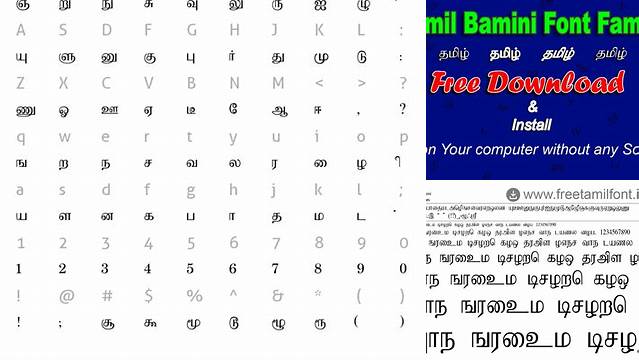
Bamini Font Free Download: Your Ultimate Guide
What is the Bamini Regular Font?
First things first, what exactly is the Bamini Regular font? Well, in a nutshell, it's a widely-used Tamil font that's known for its clear readability and aesthetic appeal. It's designed specifically for the Tamil language, meaning it includes all the necessary characters and glyphs to properly display Tamil text. Bamini Regular is a favorite among writers, designers, and anyone else working with Tamil because it strikes a perfect balance between functionality and style. It's easy on the eyes, even when you're reading long passages, making it ideal for everything from books and articles to websites and presentations. The font’s clean design ensures that the text remains clear and legible, irrespective of the size or the medium used. The Bamini Regular font plays a pivotal role in the digital and print landscape, serving the needs of a vast Tamil-speaking audience across the globe. The character set is designed to encompass all the nuances of the Tamil script, from the basic vowels and consonants to the complex combinations and special symbols. This ensures that the font can accurately represent any Tamil text, no matter the context. It’s a must-have tool for anyone looking to create content in Tamil. The font also comes with variations, but the Regular version is often the most popular for its versatile nature. Users often choose this version for general use due to its balanced design and readability. The Bamini Regular font is more than just a typeface; it’s a bridge that connects the rich literary tradition of Tamil with the modern digital world. It empowers individuals and organizations to communicate effectively in Tamil across a wide range of platforms and media. It embodies the cultural heritage of the Tamil language, presenting it in a clear, accessible, and aesthetically pleasing format. The widespread adoption of this font speaks volumes about its effectiveness and appeal. Whether you’re a student, a professional, or simply someone who enjoys reading Tamil, the Bamini Regular font is an essential tool that enhances your experience with the language.